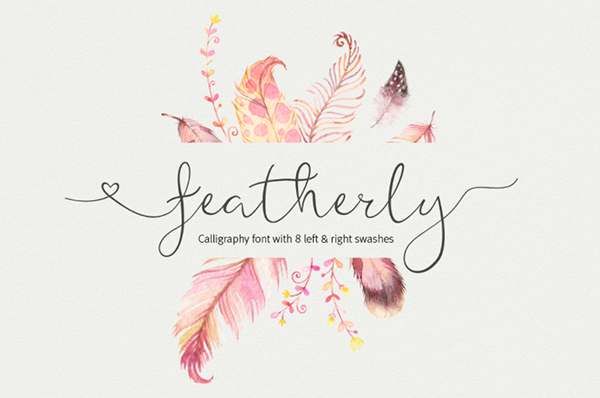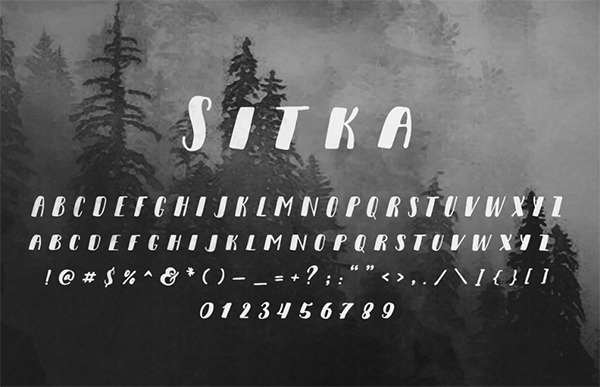
TUESDAY FONTS: Featherly, Sitka and Uni Sans
Tuesday is here and so is our category: Tuesday Fonts. This time we present to you Featherly, Sitka and Uni Sans.
Featherly font – wedding font
Featherly is a hand drawn, elegant, modern calligraphic font perfect for wedding design projects, invitations, greeting cards, signatures, watermarks, logos, handwriting and more.
Sitka – A Brush Typeface
Sitka is a fun brush typeface. Perfectly imperfect, yet extremely versatile. Sitka is an All-Caps typeface featuring Uppercase & Small Caps. It comes with all standard glyphs available on your keyboard for English Language use. It’s fun & quirky and easily aesthetically pleasing. Brush fonts have been very popular recently and this is the response with a unique take on the style. Sitka comes in OTF form.
Uni Sans
Uni Sans is a custom sans font which is applicable for any type of graphic design – web, print, motion graphics etc and perfect for t-shirts and other items. The package contains following fonts in Desktop (.otf, .ttf) and WebFont formats (.ttf .svg .eot .woff): Uni Sans Thin, Uni Sans Thin Italic, Uni Sans Light, Uni Sans Light Italic, Uni Sans Book, Uni Sans Book Italic, Uni Sans Regular, Uni Sans Regular Italic, Uni Sans SemiBold, Uni Sans SemiBold Italic, Uni Sans Bold, Uni Sans Bold Italic, Uni Sans Heavy and Uni Sans Heavy Italic.